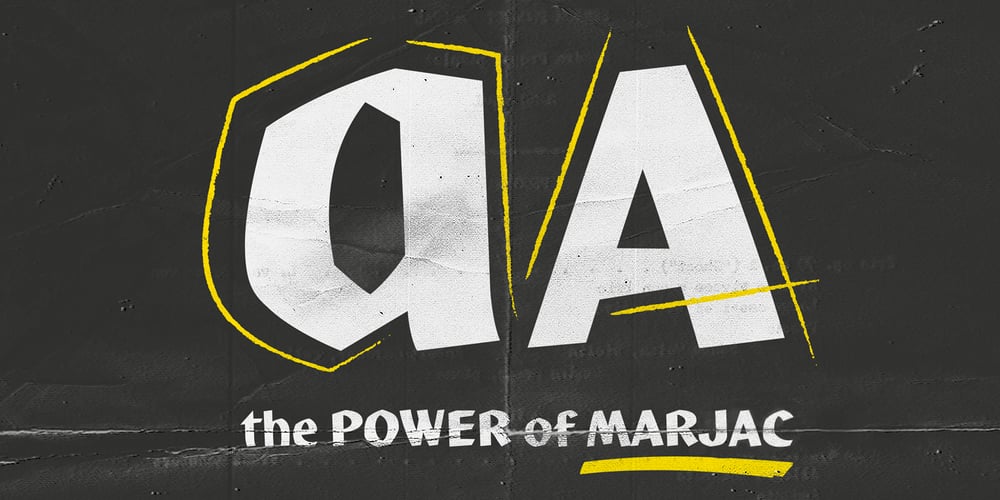
Marjac Font Family was designed by Jeremia Adatte, Marcel Jacno and published by Jeremia Adatte. Marjac contains 3 styles and family package options. Marjac is an angular and upright script typeface that is directly inspired by handwriting. It is created after “Jacno”, a typeface designed in 1948 by French type and graphic designer Marcel Jacno. This unique bold design later inspired other typeface designers to create brush script typefaces like Roger Excoffon’s “Choc”. You will also notice it has a “unicase” feel, sharing some lowercase letters in the capital letters. It is recommended to use it for any packaging designs related to quality hand-made products, advertising, web, film title sequence design, posters, magazines and book jackets. Marjac is loaded with an extended character set, supporting Central, Western and Eastern European languages. It has plenty of cool OpenType features like a fun automatic brush underline feature or newly-designed secret alternate letters (like capital A). Kerning and spacing (+ than 25,000 kerning pairs) have been meticulously made-to-measure to this specific brush typeface. Beautiful hand-made arrows and other symbols were created to accompany letters.